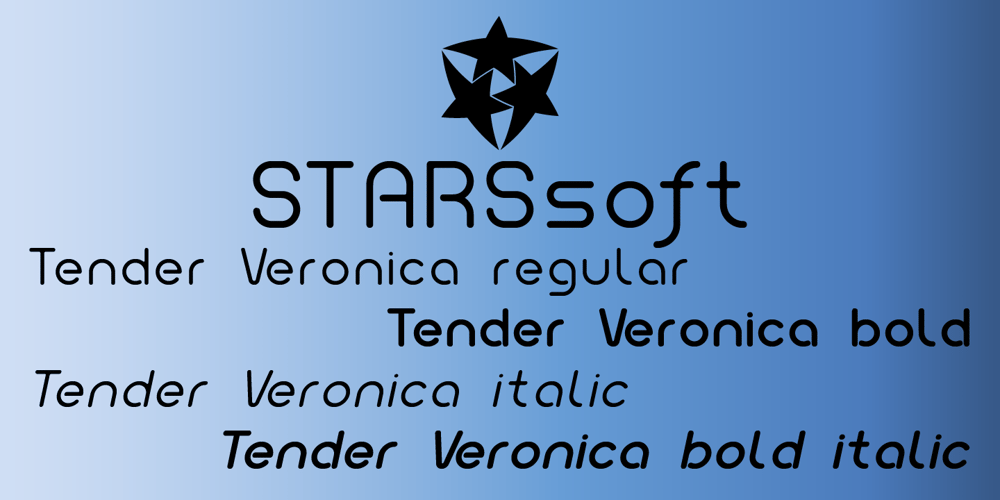
Tender Veronica Font Family was designed by Viktor Kalgin and published by STARSsoft. Tender Veronica contains 4 styles and family package options. An elegant font that is suitable for all types of printing. Latin font support for these languages: English, Danish, Spanish, German, Norwegian, Polish, Portuguese, French, SwedishAlso support for a large number of languages in Cyrillic:Russian, Belarusian, Bulgarian, Macedonian, Serbian, Ukrainian, Kazakh, Kyrgyz